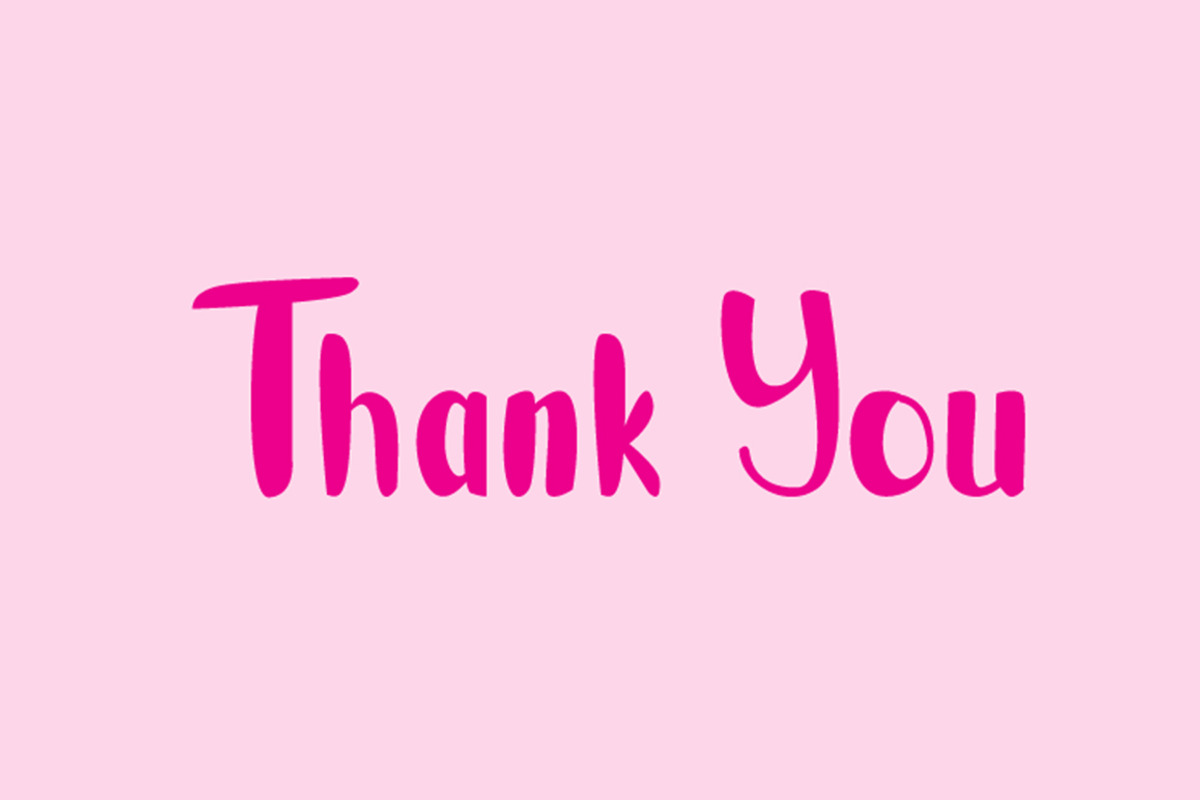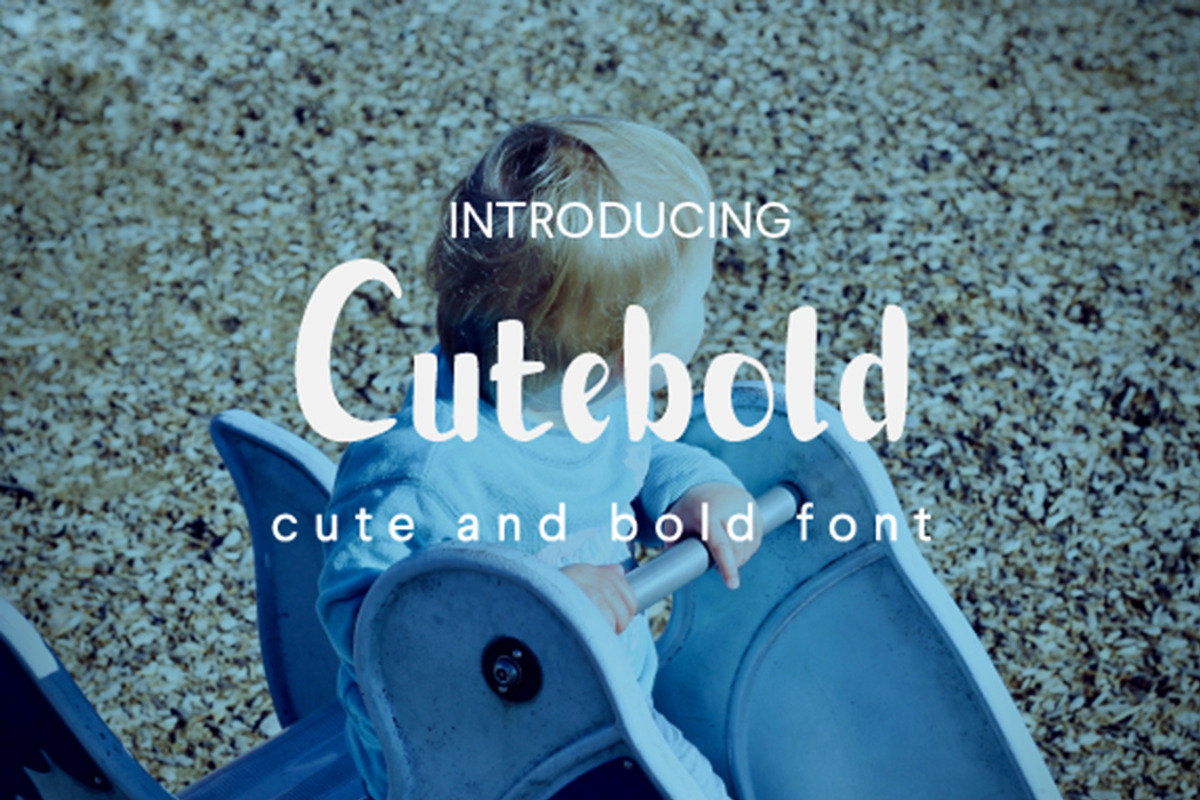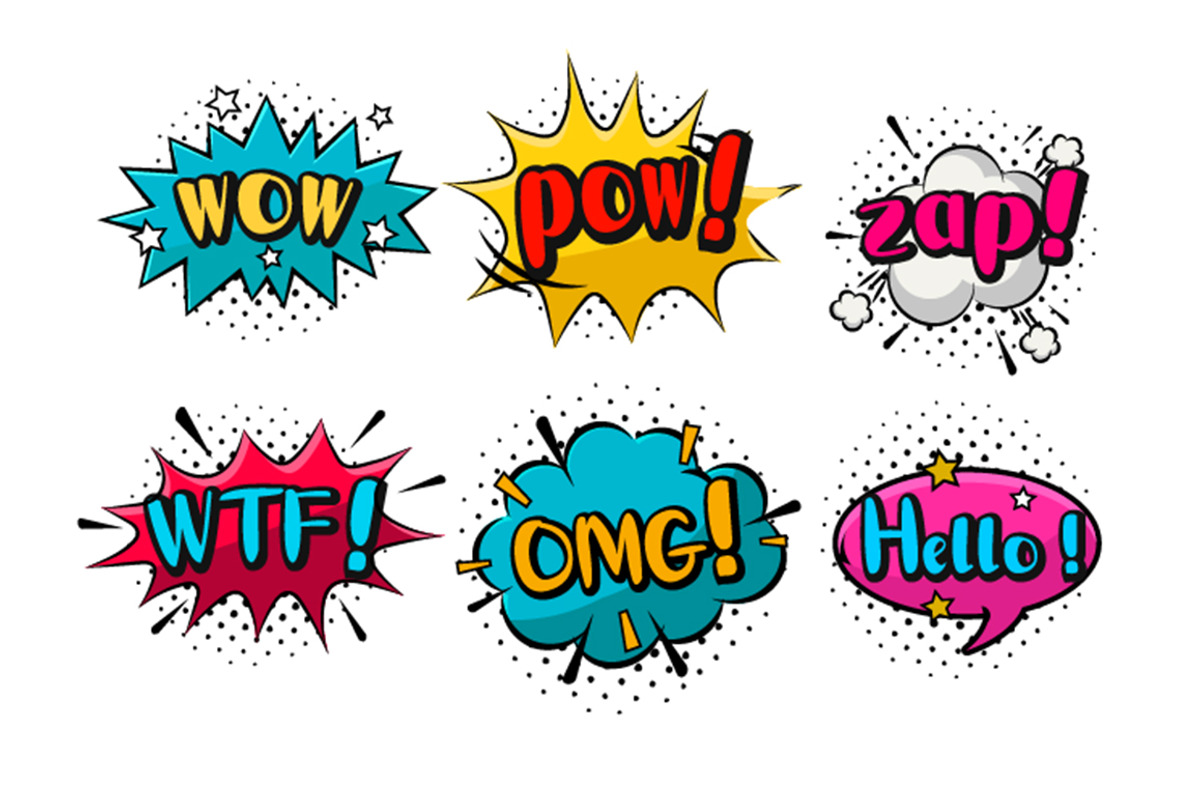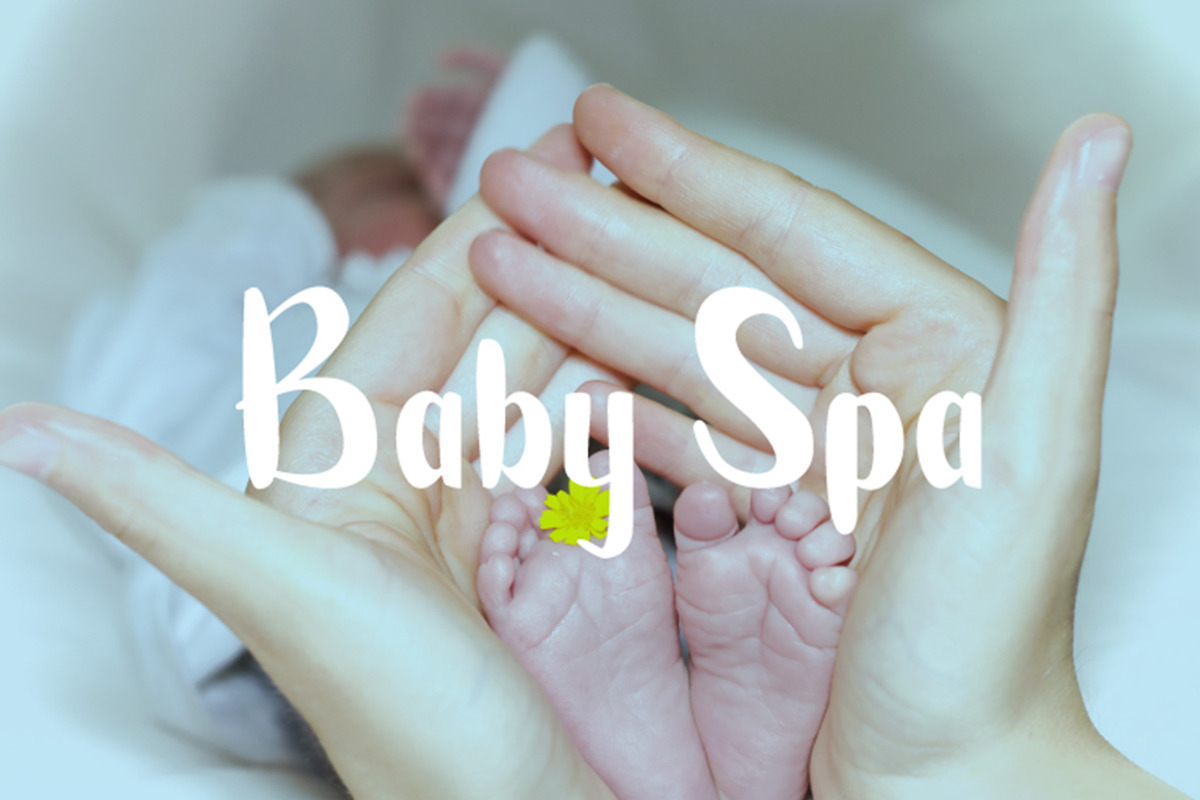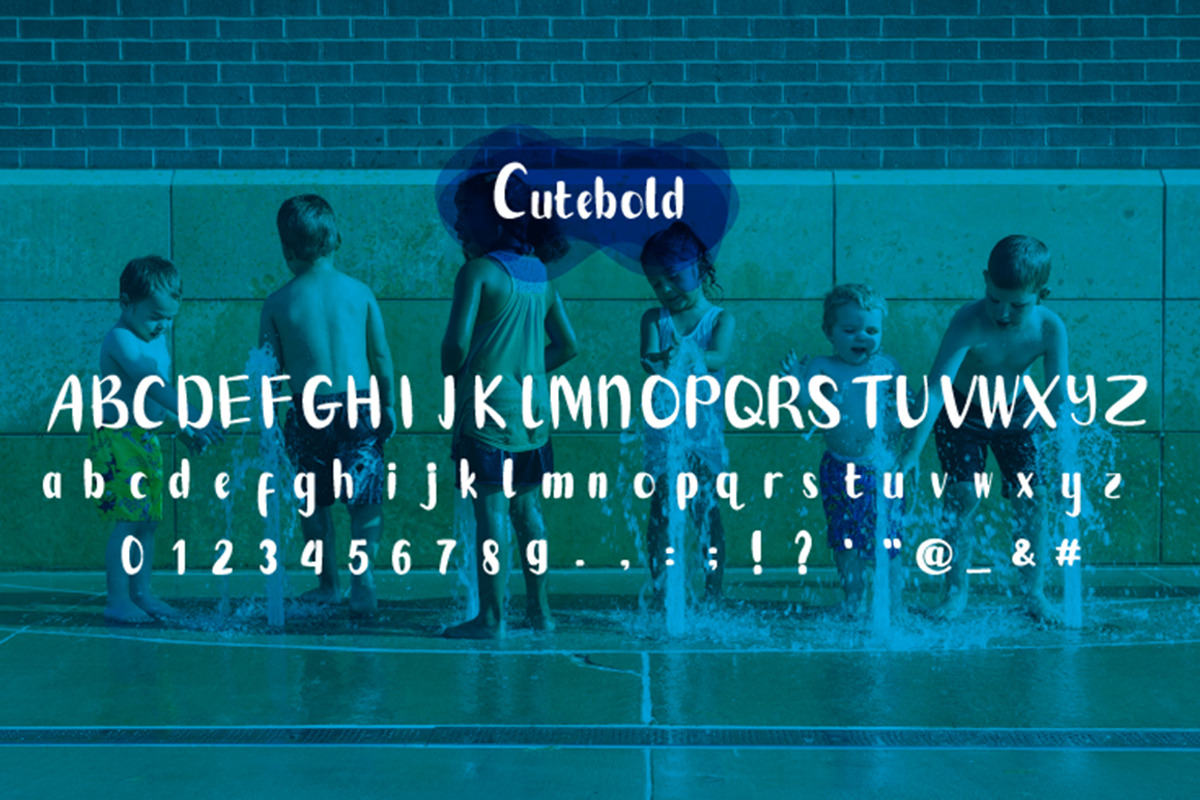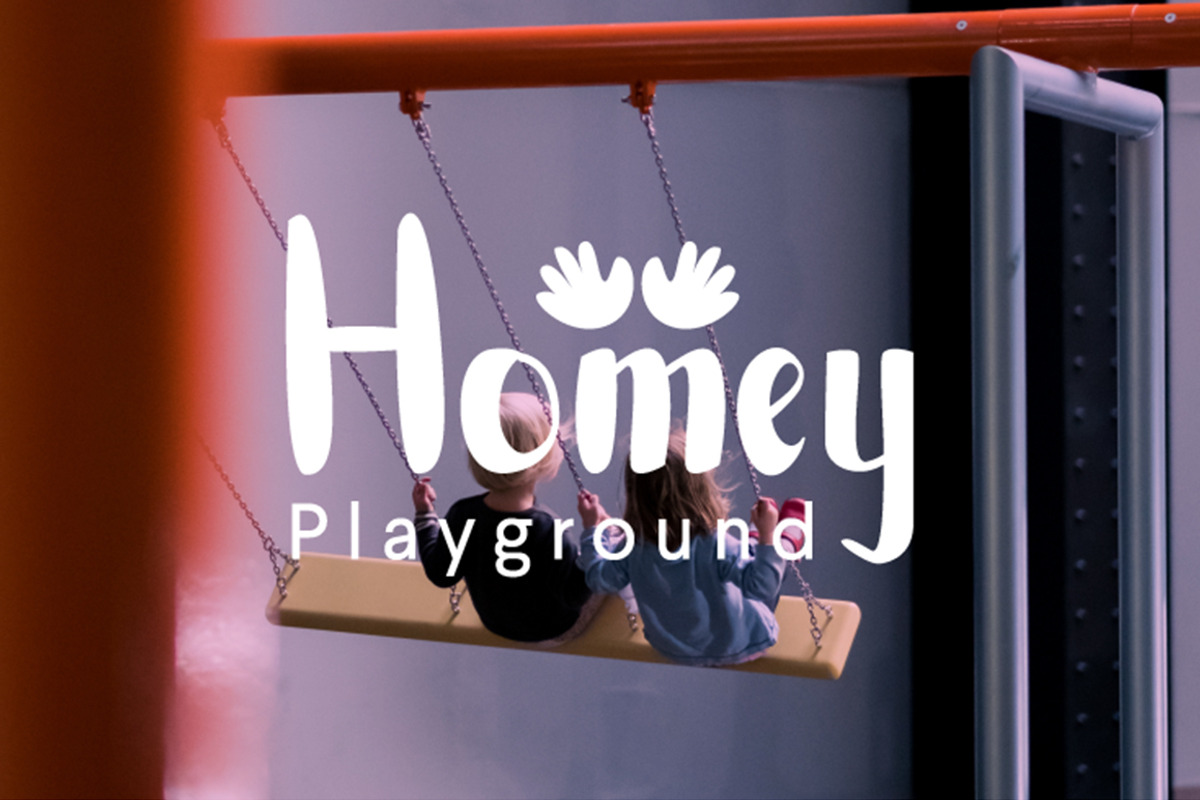
Cutebold - display font
Hello Gaes! How are you guys ? I'm sure it's very good! Introduce, this is our first product, we call this product Cutebold Font. Cutebold Fonts are modern handwrite, with bold touches and beautiful curves on each letter. Cutebold fonts are great for use in: Comic, logo design for baby or child product.